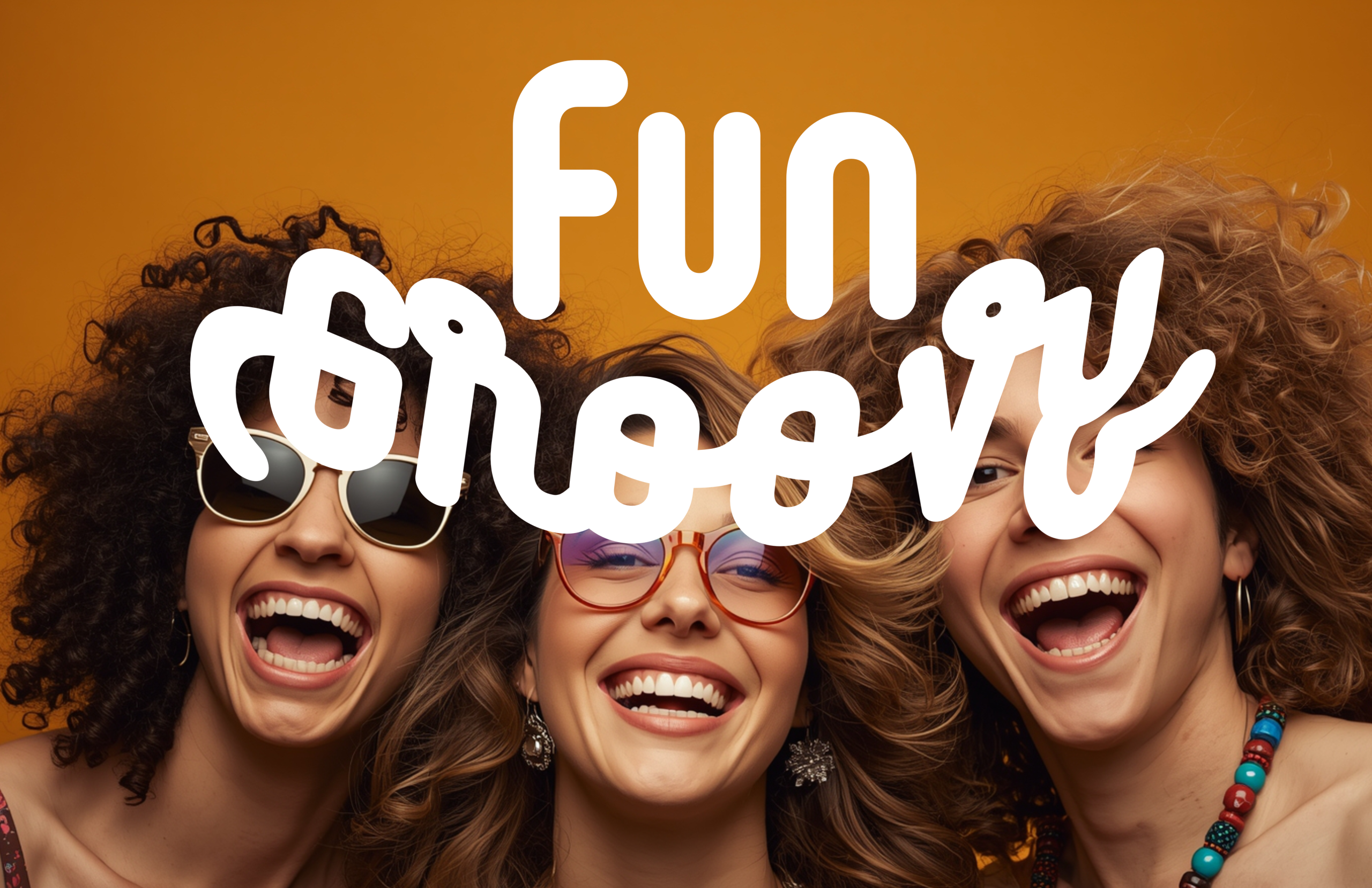
Fonts extend beyond mere letters, they encapsulate the ambiance, character, and visual appeal of a design. Among the diverse typographic styles, fun and groovy fonts exude vitality, cheerfulness, and are ideal for crafting retro or playful aesthetics. This style finds widespread adoption in branding, music posters, and social media content seeking prominence.
1. Definition of Fun and Groovy Fonts:
– Typefaces characterized by bold, rounded, and dynamic letterforms.
– Their letterforms often evoke a retro, bubble-like, or psychedelic aesthetic, immediately capturing attention.
– Suitable for titles, logos, event posters, and materials that aspire to convey energy and distinctiveness.
2. Benefits of Fun and Groovy Fonts:
– Infuse designs with a lively and expressive quality.
– Establish a robust visual identity.
– Ideal for creative branding, lifestyle products, events, and social media platforms.
Here are some premium fonts that empower you to incorporate a fun and groovy aesthetic into your design projects, ranging from playful retro looks to professional combinations:
1. Ranszo: A vibrant display font that exudes energy and embodies retro character.
Ranszo
Ranszo is a bubble display font that evokes a retro and playful aesthetic. Its rounded letterforms and robust visual presence make it ideal for poster designs, bold logos, cheerful packaging, and titles that seek a distinctive and captivating appearance.
Suitable Applications:
– Logos and branding
– Event posters
– Product packaging
– Promotional content and social media
2. Huskey Duo Sans + Script Font
Huskey Duo Sans + Script Font harmoniously blends a modern sans serif with a warm script, offering exceptional flexibility for professional designs that retain a personal touch. This font is particularly suitable for logos, packaging, and brand identities that aspire to a clean yet stylish aesthetic.
Font Family:
– Huskey Sans: A modern and approachable sans serif font
– Huskey Script: A smooth and expressive script font, suitable for both combination and standalone use
Suitable Applications:
– Creative logos
– Branding and identity
– Editorial headlines
3. Berora
Berora is an energetic and friendly bold sans serif font that exudes a vibrant and approachable personality.
Berora, a sans-serif font characterized by rounded letterforms and balanced proportions, offers a playful yet balanced aesthetic. While not as bubble-like as Ranszo, Berora’s character is still suitable for headlines, quotes, and promotional materials seeking a clean yet energetic visual identity.
Benefits of Berora:
– Visual Impact for Headings: Berora’s strong visuals make it ideal for headlines.
– Cheerful and Modern Aesthetic: Its cheerful and modern aesthetic aligns well with contemporary design trends.
– Versatility: Berora’s versatility enables its use in various design projects.
Suitable for:
– Branding
– Packaging
– Posters and advertisements
– Social media
Effective Use of Fun and Groovy Fonts:
– Headline and Title Elements: Fun and groovy fonts are particularly effective when used for headlines or design titles.
– Complementary Pairing: To avoid visual clutter, pair fun fonts with simple fonts, such as clean sans-serifs, for body text.
Conclusion:
Fun and groovy fonts can be powerful design tools, adding character, energy, and strong visual appeal to projects. By combining retro bubble styles like Ranszo, modern duo styles like Huskey, and bold sans-serif styles like Berora from Authentype, you gain a comprehensive typographic toolkit for diverse design needs.